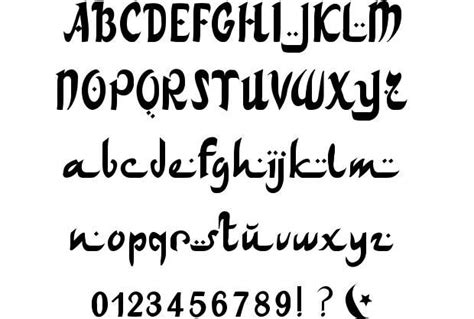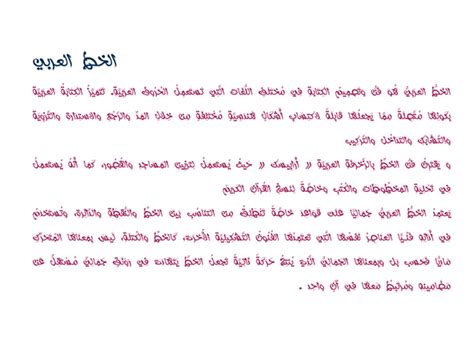
English Arabic Script Font - 50+ Beautiful Free Arabic Calligraphy Fonts 2014 : Thuluth is an older arabic script that existed primarily in medieval times.. Sil ofl (free for commercial use) 1 font file download. خط الكوفي المربع ، رسم وبني من الصفر استنادًا إلى قواعد الخط الكوفي الخط العربي الشهير ، بني بناء على حجم النقطة ومضاعفاتها والمسافة بين الحروف. Google fonts now supports variable fonts. Arabic for overlapping or intertwinement, this arabic typeface features uniquely intertwined hollow letterforms, most suited for this versatile font does not completely follow traditional directions of arabic scripting. There is no requirement for creating accounts in our website to.
Fonts that support the arabic script language. Arabic fonts for photoshop, arabic fonts for illustrator, arabic fonts for free for design.whatever you searching about. Google fonts now supports variable fonts. Browse other questions tagged fonts packages compiling arabic or ask your own question. The arabic script is the 2nd most widely used script after latin by number of countries, and 3rd by number of speakers (after latin and chinese). With a traditional character, our arabic fonts give your text a very original style. Not the answer you're looking for? Like many of the older scripts, it was used on mosques and in koranic texts because of its longhand.
It used for writing the arabic language and several other languages of asia and africa, such as persian, urdu, azerbaijani, pashto, uighur, etc.
Free arabic fonts download, in arbfonts you can download all type of arabic fonts so easy it conatins thousands of free personal and commercial fonts. Or tou were searching : Arabic for overlapping or intertwinement, this arabic typeface features uniquely intertwined hollow letterforms, most suited for this versatile font does not completely follow traditional directions of arabic scripting. Browse by alphabetical listing, by style, by author or by popularity. Recent fonts top fonts designers submit a font. Font name newest most downloads. An interesting trend nowadays is the design of arabic font styles that are tailored to match some english typeface that is already present. Every font is free to download! Arabic script using latex including persia, urdu and kurdish لاتكس بالعربية. Google fonts now supports variable fonts. No hassle, no fuss, find thousands of high quality free fonts on fontsc. Fonts that support the arabic script language. The arabic script is the 2nd most widely used script after latin by number of countries, and 3rd by number of speakers (after latin and chinese).
Thuluth is an older arabic script that existed primarily in medieval times. Not the answer you're looking for? Like many of the older scripts, it was used on mosques and in koranic texts because of its longhand. Browse by alphabetical listing, by style, by author or by popularity. Google fonts now supports variable fonts. Sil ofl (free for commercial use) 1 font file download. Archive of freely downloadable fonts. You can use these fonts to create custom styles.
Or tou were searching : Droid arabic naskh by pascal zoghbi. You can use these fonts to create custom styles. Browse other questions tagged fonts packages compiling arabic or ask your own question. خط الكوفي المربع ، رسم وبني من الصفر استنادًا إلى قواعد الخط الكوفي الخط العربي الشهير ، بني بناء على حجم النقطة ومضاعفاتها والمسافة بين الحروف. With a traditional character, our arabic fonts give your text a very original style. ✓ click to find the best 180 free fonts in the arabic style. Recent fonts top fonts designers submit a font. Fonts that support the arabic script language. Arabic script font | خط سكريبت. Arabic fonts for photoshop, arabic fonts for illustrator, arabic fonts for free for design.whatever you searching about. Every font is free to download! We offer fonts for various writing styles in arabic scripts.
It used for writing the arabic language and several other languages of asia and africa, such as persian, urdu, azerbaijani, pashto, uighur, etc. Browse other questions tagged fonts packages compiling arabic or ask your own question. You can use these fonts to create custom styles. This script is one of the staples in architectural arabic writing, not to mention one of the oldest. Molsaq is an arabic script font perfect for setting applications that require tight leading, such as posters, hence the name, which means poster in arabic.
This results in a totally readable product that looks good on. Arabian lamb by fonts bomb. Like many of the older scripts, it was used on mosques and in koranic texts because of its longhand. An interesting trend nowadays is the design of arabic font styles that are tailored to match some english typeface that is already present. ✓ click to find the best 180 free fonts in the arabic style. Droid arabic naskh by pascal zoghbi. Archive of freely downloadable fonts. Arabic script font | خط سكريبت.
Arabic script using latex including persia, urdu and kurdish لاتكس بالعربية. Every font is free to download! Demo donationware free free for personal use public domain, gpl, ofl shareware. This script is one of the staples in architectural arabic writing, not to mention one of the oldest. The arabic script is a writing system used for writing arabic and several other languages of asia and africa, such as persian (farsi/dari), uyghur, kurdish, punjabi, sindhi, balochi, pashto, lurish, urdu. Moreover, our fonts are very rich and of high quality. Thuluth is an older arabic script that existed primarily in medieval times. Recent fonts top fonts designers submit a font. Not the answer you're looking for? No hassle, no fuss, find thousands of high quality free fonts on fontsc. Like many of the older scripts, it was used on mosques and in koranic texts because of its longhand. Futura din helvetica burbank copperplate gothic bold avenir interstate script myriad arial garamond arabic bodoni swiss univers century neutra copperplate avant souvenir minion avalon times gothic switzerland bauhaus bahamas news. This results in a totally readable product that looks good on.